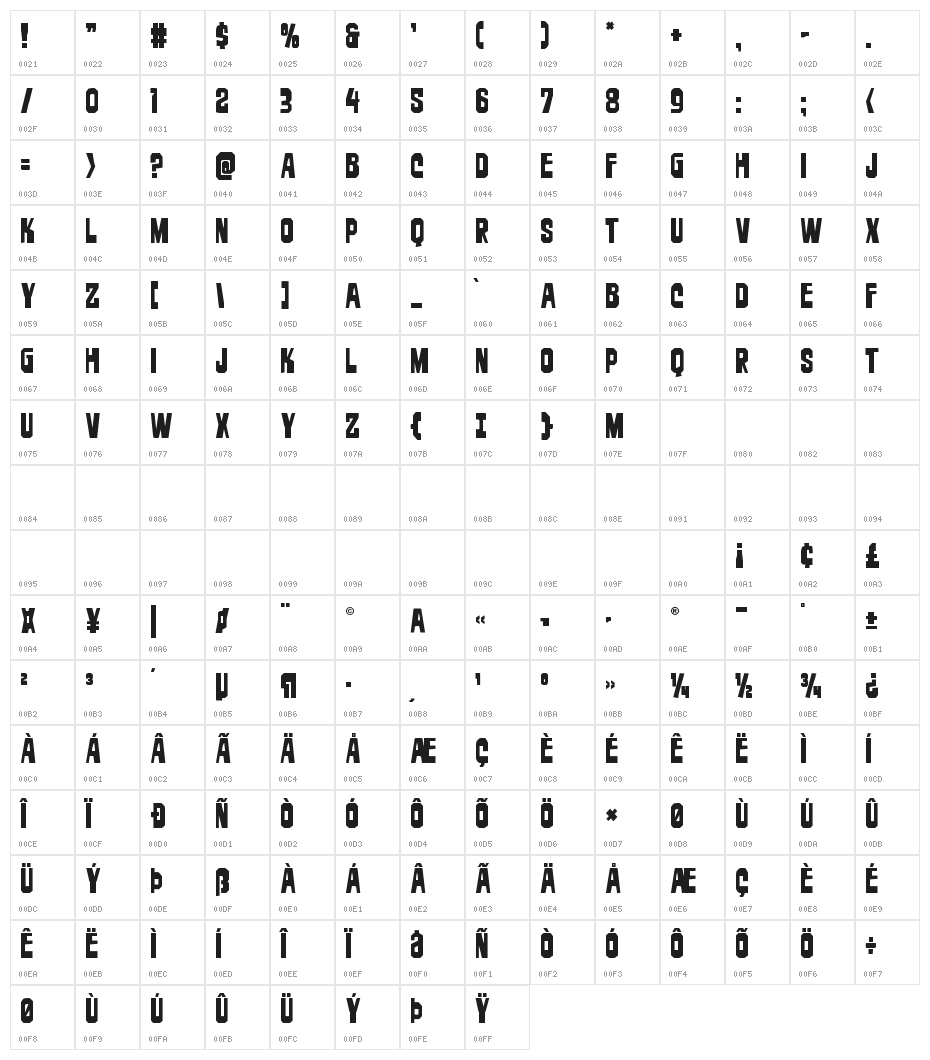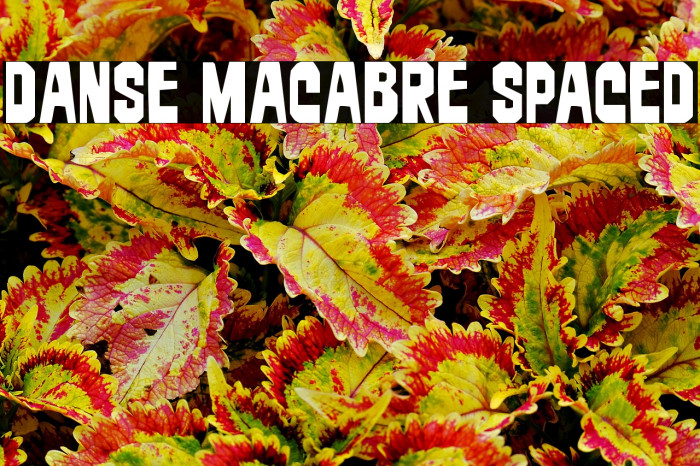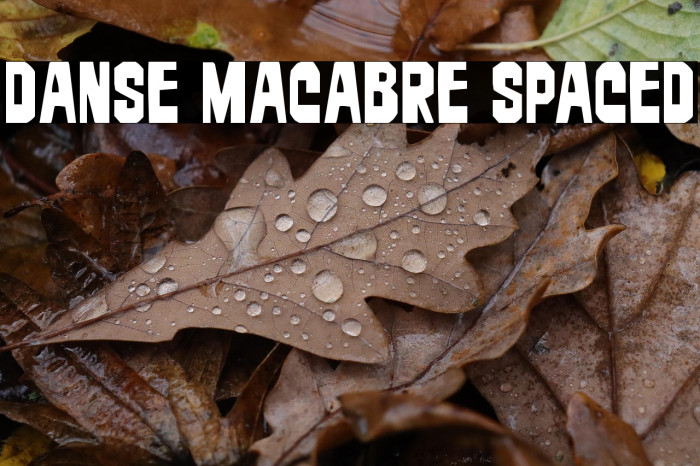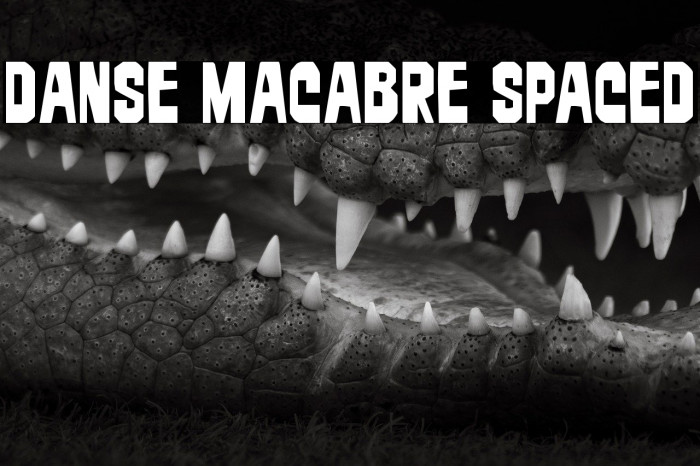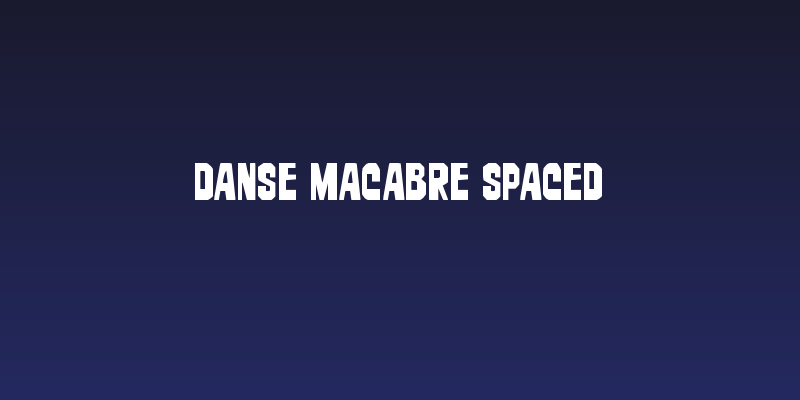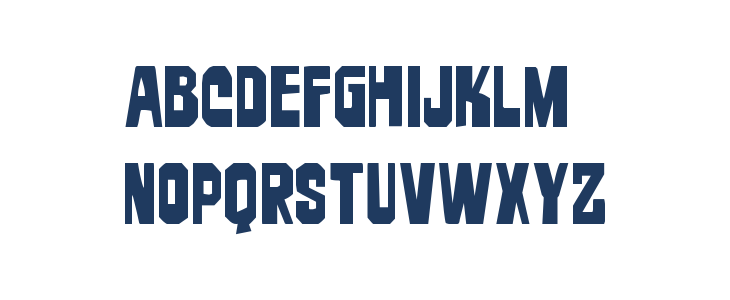
Danse Macabre Spaced Font
Danse Macabre Spaced Description
This font features a bold, impactful design with a strong presence. The characters are sharply angular, giving them a modern and edgy appearance. The uppercase letters are particularly striking, with a geometric style that commands attention. The numbers and special characters maintain this bold aesthetic, ensuring consistency across all glyphs. The font's design is reminiscent of vintage poster typography, yet it carries a contemporary flair that makes it versatile for various design applications.